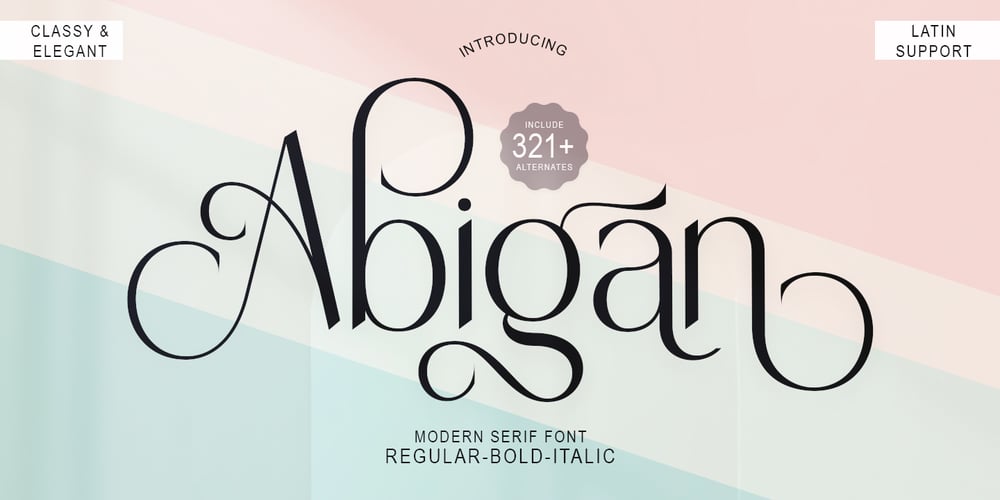
Abigan Font Family was designed by Ikhsan Maulana and published by IM Studio. Abigan contains 3 styles and family package options. Abigan is an elegant new serif font that will add a touch of luxury and sharp diamond points add a slick yet legible Persian style. This versatile font is Perfect for editorial projects, magazine headers, Logo designs, Apparel Branding, product packaging, and displays both masculine and feminine qualities.Abigan comes with full uppercase, lowercase, numbers and punctuation marks + Multi-language support and PUA encoding.To enable the OpenType Stylistic alternative, you need a program that supports OpenType features such as Adobe Illustrator CS, Adobe Indesign & CorelDraw X6-X7, Microsoft Word 2010 or later.